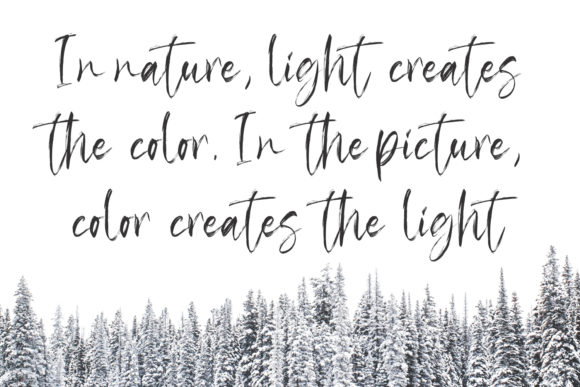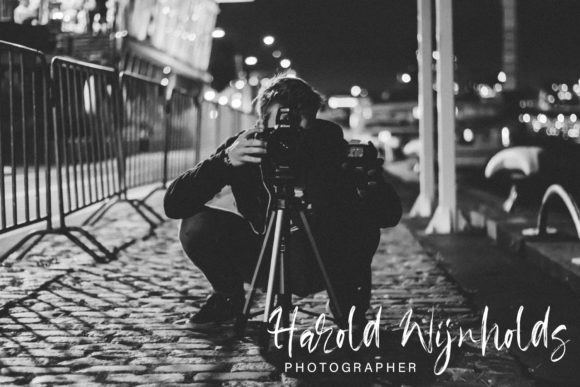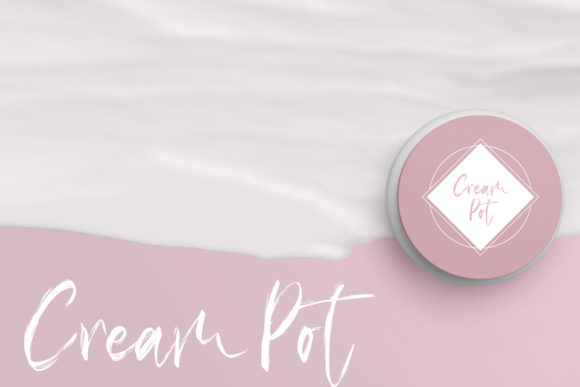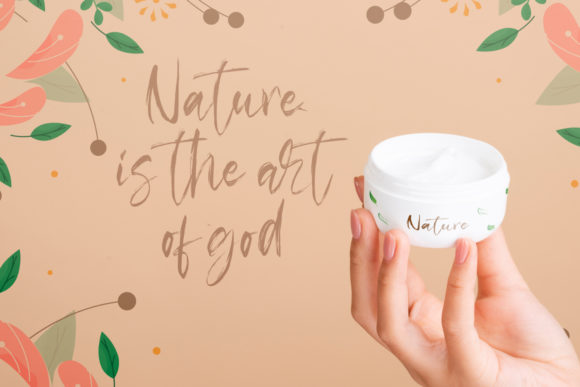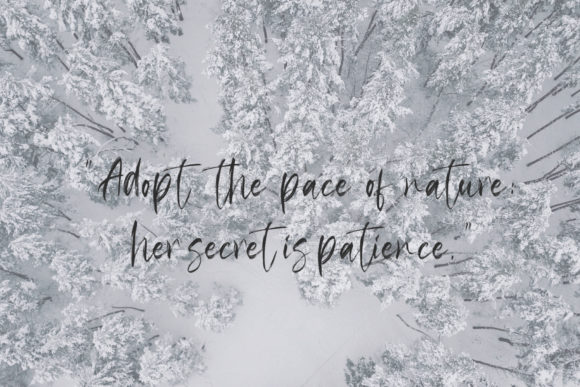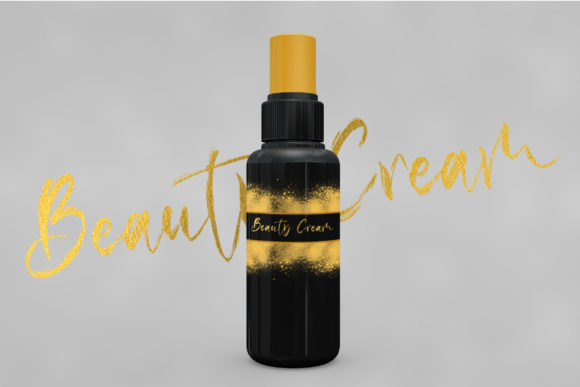
Unleashing the Power of Handwritten Creativity with Klasted Font
As a designer, you’ve probably had that moment when you’re brainstorming a creative project and a spark of inspiration hits you. For me, it was when I stumbled upon a raw, handwritten font that added a touch of rugged elegance to my design. That font was Klasted Font, a bold brush script font that evokes the style of strong and organic handwriting. I was immediately captivated by its raw energy and the freedom it gave me to express myself.
Klasted Font is more than just a design resource – it’s a high-quality tool that can elevate your designs and give them a unique personality. With its transparent background and free download, it’s a valuable asset for any designer looking to add a touch of handmade charm to their work.
Key Features of Klasted Font
- High-quality, unique design for creative projects, ideal for use as a design resource.
- Includes a range of characters and glyphs, making it suitable for both personal and commercial use.
- Supports multiple languages, ensuring that the font is accessible and usable across different cultures and regions.
- Unique characteristics include a modern, minimalist aesthetic and a range of subtle nuances that add depth and interest to your design.
Honest Review: Klasted Font
As a designer, I’m always on the lookout for high-quality fonts to enhance my creative projects. The Klasted Font is one such find that has caught my attention.
- Unique design style: The Klasted Font boasts a distinctive, futuristic aesthetic that sets it apart from more traditional fonts.
What could be improved:
- Limited character set: The font’s character set is somewhat limited, which may be a concern for designers working on projects that require a wide range of characters.
- Not suitable for body text: While the Klasted Font is perfect for headlines and titles, it may not be the best choice for body text due to its unconventional style.
Overall impression: I’m impressed with the Klasted Font’s unique design style and versatility. While it may have some limitations, it’s a valuable addition to any designer’s toolkit.
Common Use Cases for Klasted Font
The Klasted Font is a versatile design resource that can be used in a variety of creative projects, including logos, brochures, and social media graphics. Its high-quality design and transparent background make it perfect for use in modern and minimalist designs.